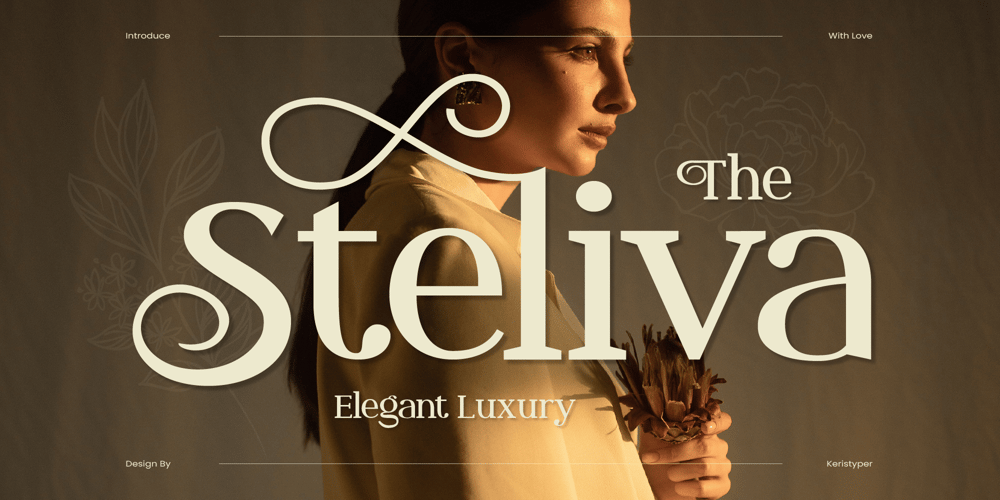
Steliva
Steliva font
Steliva Font Family was designed by Tezar Tantular and published by Keristyper Studio. Steliva contains 1 styles and family package options. Steliva is an elegant and luxurious font that exudes sophistication and class. Its fine strokes and sharp edges create a beautiful balance of elegance and modernity. Perfect for a variety of design projects such as branding, logos, invitations, and more, Steliva adds a touch of glamour and refinement to any design.Featured: Standard, Uppercase & Lowercase Numeral & Punctuation Multilingual : ä ö ü Ä Ö Ü ß ¿ ¡ Alternate & Ligature PUA encoded We recommend programs that support the OpenType feature and the Glyphs panel such as Adobe applications or Corel Draw, so you can use all the variations of the glyphs.Hope you enjoy our fonts!